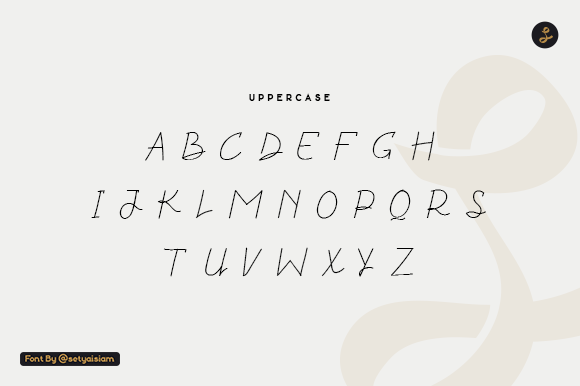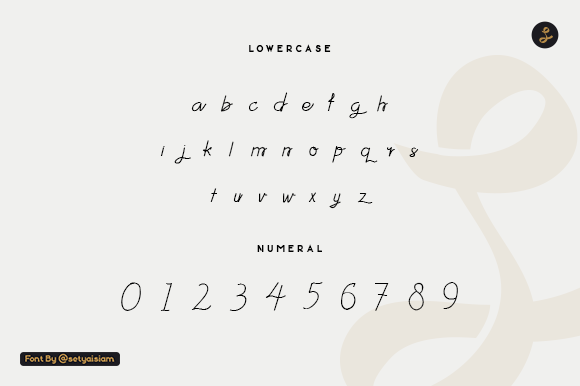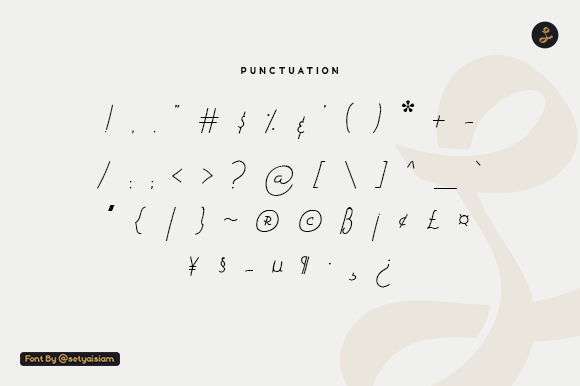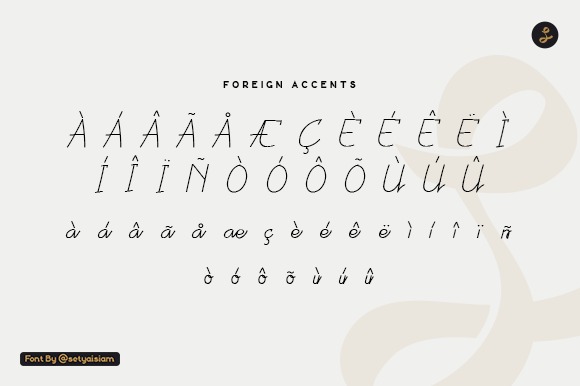
The Sweet Spot: Discovering Dear Sweetie Font
I still remember the design project that led me to Dear Sweetie Font. I was working on a whimsical craft project, aiming to create an inviting and playful vibe. However, I was struggling to find the perfect font – something that felt friendly, approachable, and down-to-earth. That’s when I stumbled upon Dear Sweetie, and it instantly clicked. Its casual charm and incredibly friendly feel made it the perfect fit for my project. In this article, I’ll share my love for Dear Sweetie Font, its features, and how to make the most of it in your designs.
- ✨ Incredibly friendly and approachable feel
- ✅ Perfect for busy backgrounds or as a standalone headline
- ✨ Highly versatile and readable
- ✅ Works wonderfully for a variety of design projects, from crafts to professional branding
While Dear Sweetie Font is amazing, there are a few things to keep in mind:
- ⚠️ May not be the best fit for very formal or corporate designs
- 🤔 Some users might find the casual feel too relaxed for certain projects
- Experiment with OpenType features, such as glyphs and stylistic alternates, to add personality to your text
The Story Behind Dear Sweetie Font
While the true origins of Dear Sweetie Font might be unknown, it’s easy to imagine a designer creating it with the intention of crafting a friendly, approachable typeface. Perhaps they wanted to bottle up the feeling of a handwritten letter or a warm conversation. Whatever the inspiration, Dear Sweetie Font has captured the hearts of designers and crafters alike with its casual charm and incredibly friendly feel.
| Font Name | Dear Sweetie Font |
| Author | setyaisiam |
Q: What makes Dear Sweetie Font so versatile?
A: Dear Sweetie Font’s casual charm and friendly feel make it suitable for a wide range of design projects, from crafts to professional branding.
Q: Does Dear Sweetie Font support OpenType features?
A: Yes, Dear Sweetie Font likely supports OpenType features such as glyphs and stylistic alternates, which can add personality and variety to your text.